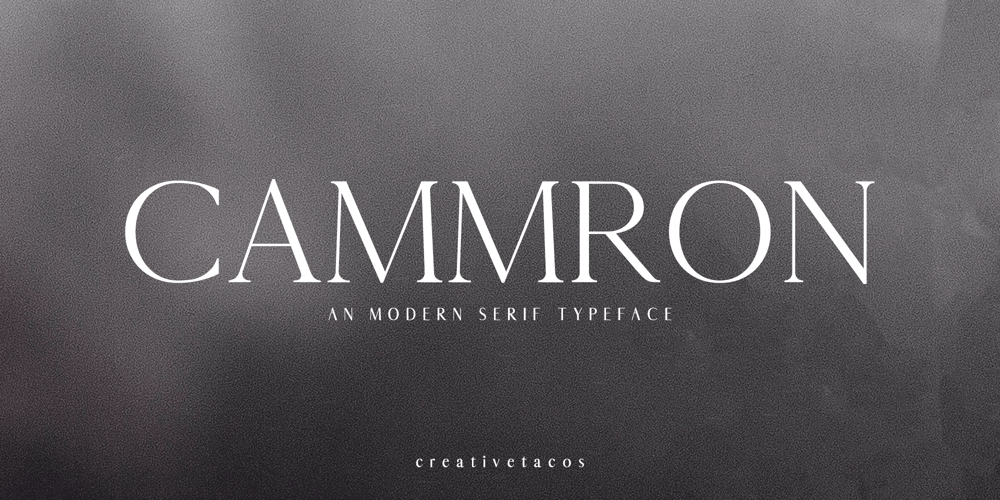
Cammron
Cammron font
Cammron Font Family was designed by Faraz Ahmad and published by Creativetacos. Cammron contains 4 styles and family package options. Cammron, a modern serif font family, embodies a blend of elegance and boldness. It includes all essential glyphs and a variety of Non-English characters. Perfect for pairing with script or handwriting styles, its features extend to uppercase and lowercase multilingual letters, numbers, punctuation, and Latin Extended A characters. From standard English to diverse special characters, Cammron supports a vast range, enabling dynamic and inclusive typography designs.